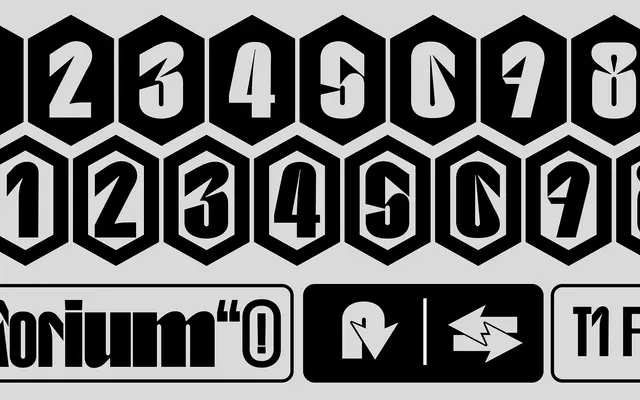
T1 Korium
A variable humanist sans by Valerio Monopoli with tightly condensed, angular forms and a thematic character set drawn from nuclear symbolism.
Developed by TYPE01 in collaboration with Valerio Monopoli, Korium is a variable font spanning six weight steps from 1KG to 6KG. Its condensed silhouette and angular construction give it a forceful presence suited to display and identity work. The character set runs to over 400 glyphs and includes wayfinding arrows, atom, biohazard and radioactivity symbols, chemical signs and further Unicode easter eggs inspired by the nuclear material corium.
Korium blends humanist letterform principles with tightly condensed, angular forms, placing it within the humanist sans category despite its assertive, display-oriented character.